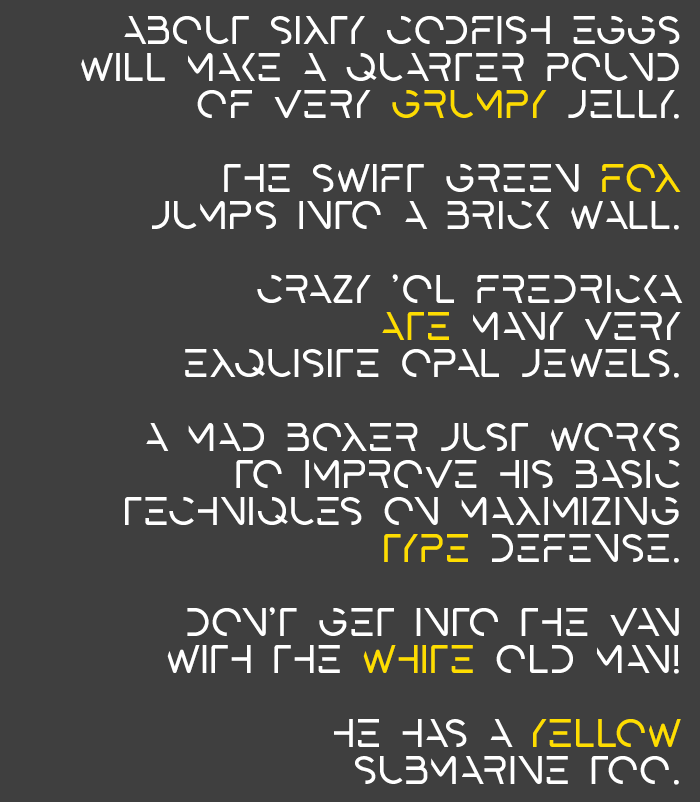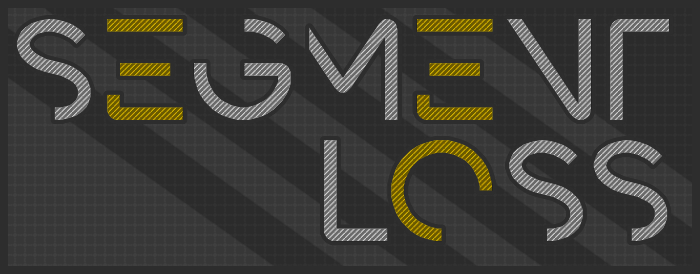
• Argh, this was horrible to make .. well, getting it slightly balanced was a nightmare. The missing segments of the glyphs constantly caused my brain to correct what I was looking at by means of general logic and my knowledge about the way in which letter spacing usually works. This effect was worst with the letters T, U, Y. And I am convinced that it still contains the necessary disproportionate irregularities with regard to the metrics. I tried kerning it as best as I could. It has only uppercase letters, no numerals and very limited punctuations. I am not sure if I will ever complete this.
Nice! Looks like someone used scissors to cut parts of the letters off...